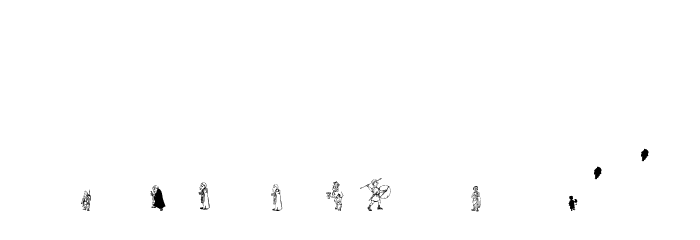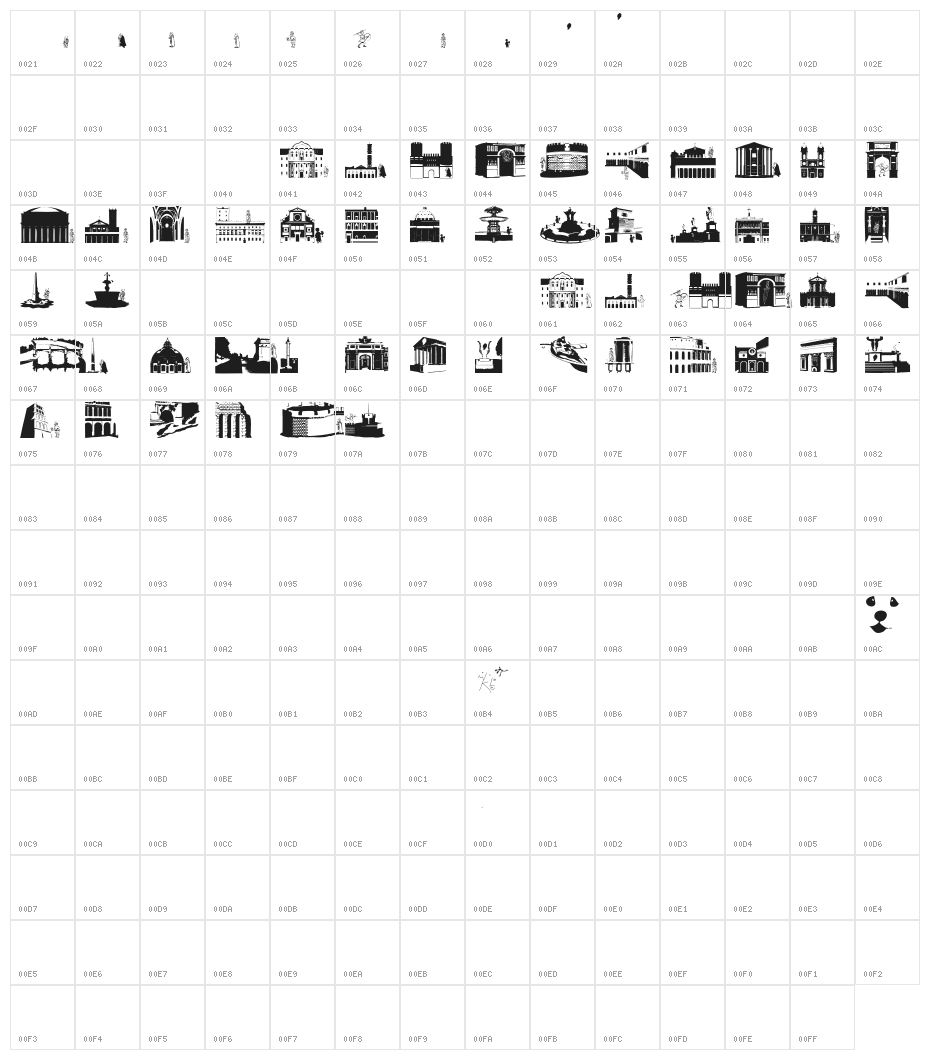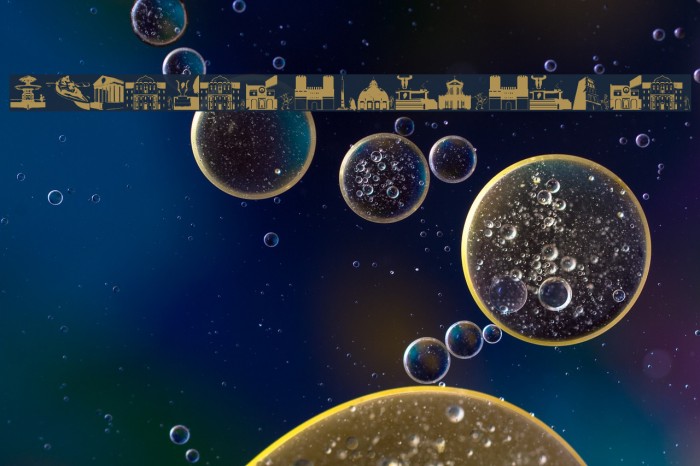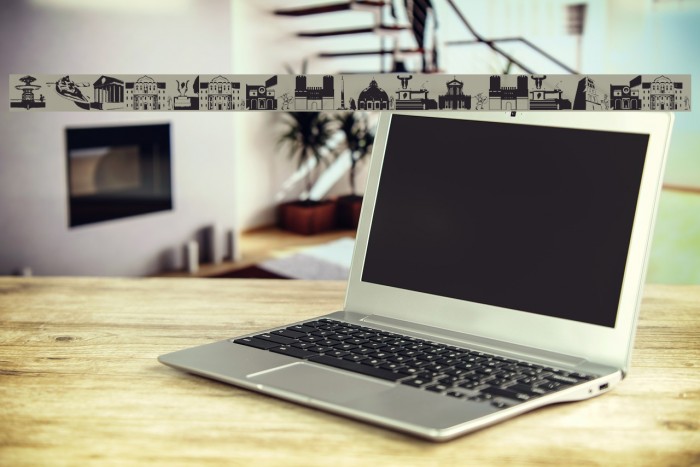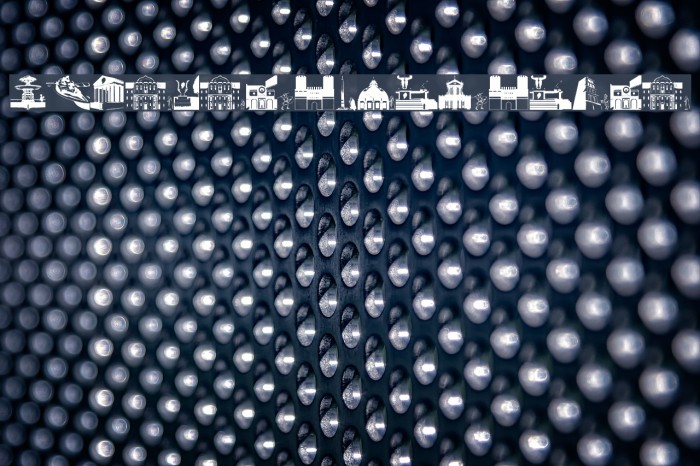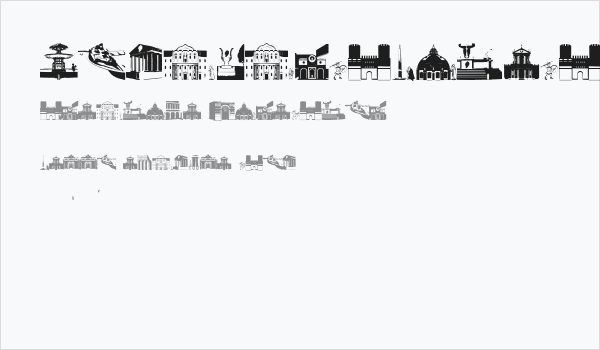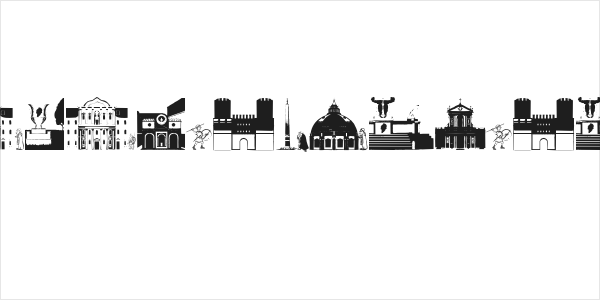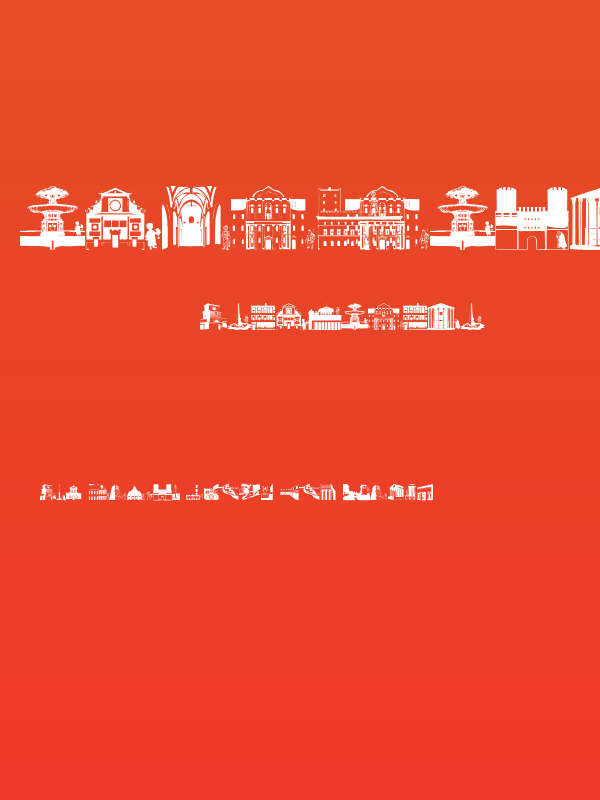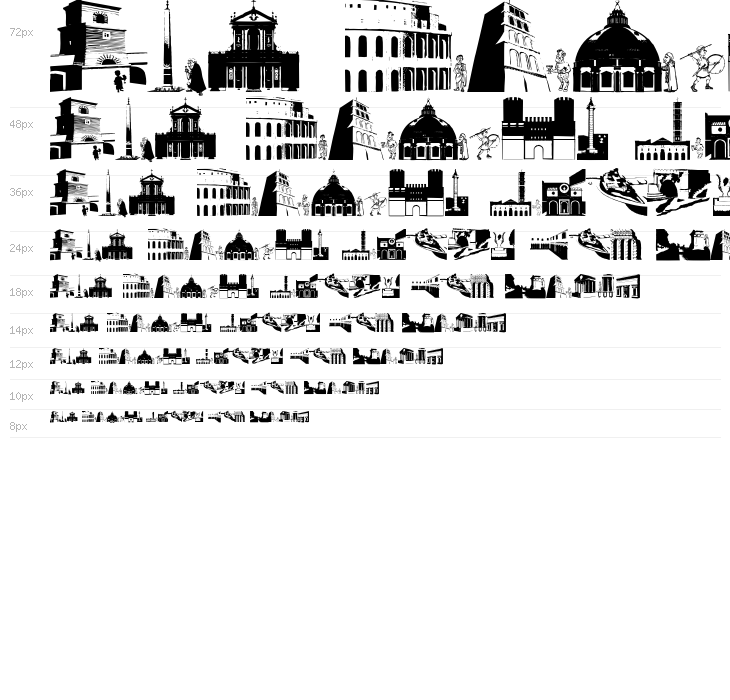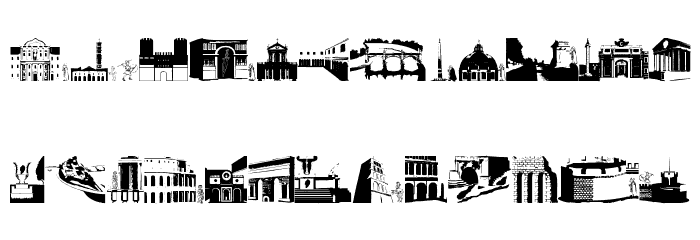
RomanArchitectura Font
RomanArchitectura Description
A decorative display font featuring detailed black-and-white silhouettes of Roman architecture, monuments, and classical figures, each glyph uniquely representing a famous landmark or statue with intricate line work and high contrast.
| Overall Style | Decorative, Historical, Thematic |
| Use Case | Logos, Posters, Headlines, Themed graphics |
| Proposed Projects | Tourism branding, historical posters, educational materials, themed event invitations, museum signage. |